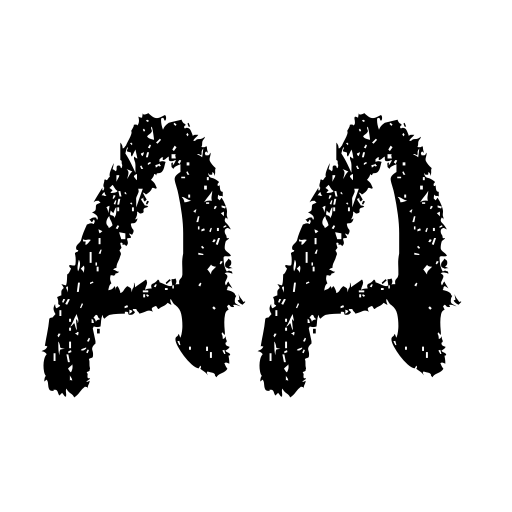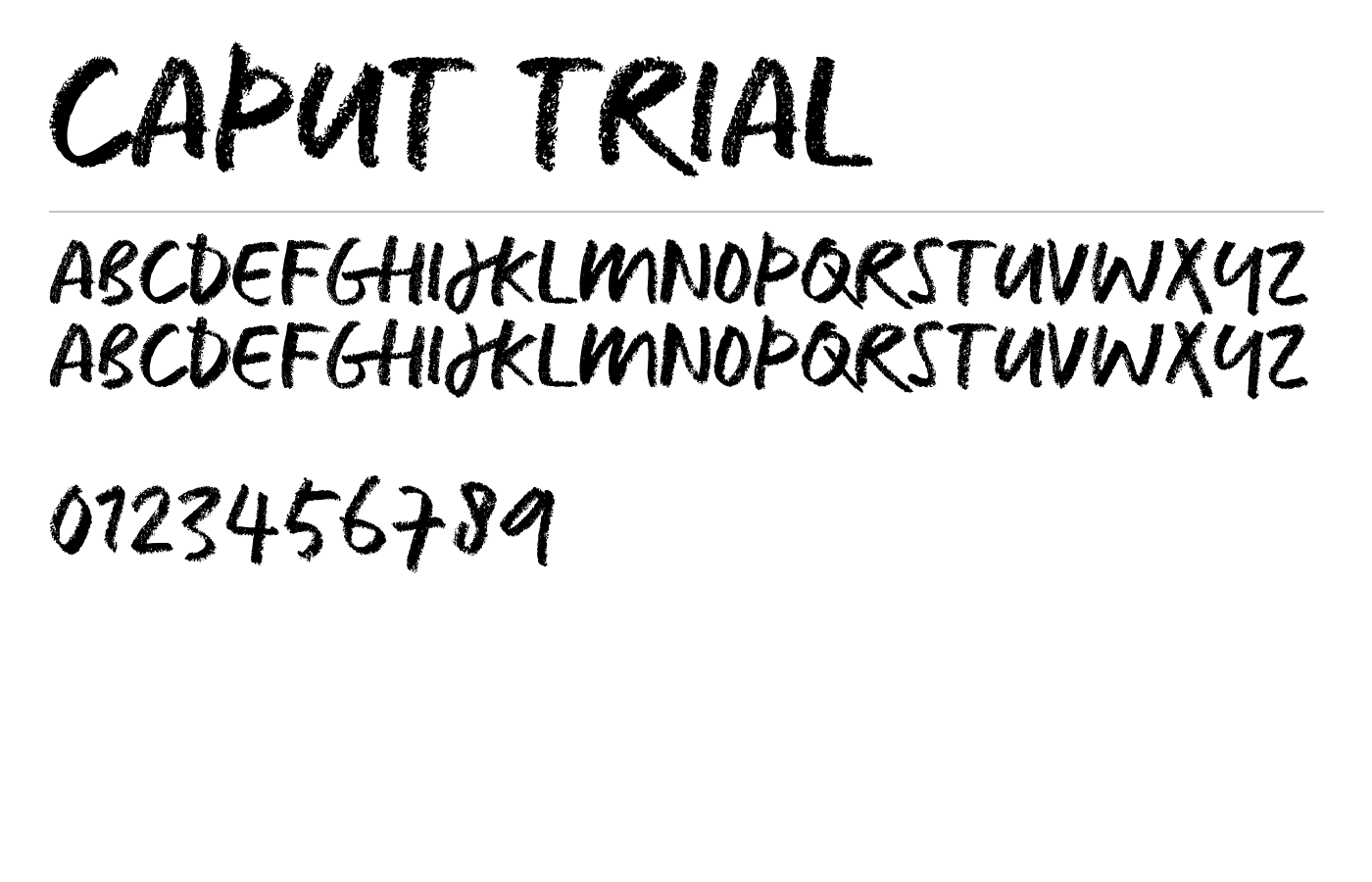
CAPUT_TRIAL is a bold, expressive handwritten brush font featuring textured strokes that give it an organic, energetic feel. Its uppercase letters and casual numbering make it ideal for designs seeking a lively, approachable vibe, perfect for creative projects, posters, and branding that wants to convey authenticity and spontaneity.
CAPUT_TRIAL Font